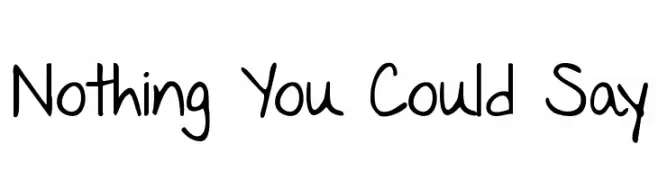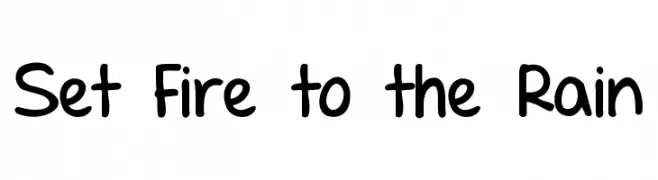
( Fonts by Kimberly Geswein - kimberlygeswein.com )
A playful, rounded font with smooth strokes and a friendly, approachable style.
( Fonts by www.kimberlygeswein.com - Kimberly Geswein )
A bold, playful handwritten font with rounded strokes and a modern touch.
( Fonts by Kimberly Geswein - kimberlygeswein.com )
A bold, playful handwritten font with rounded strokes and a lively, informal style.
( Fonts by www.kimberlygeswein.com - Kimberly Geswein )
A playful, heart-accented font with a hand-drawn, whimsical style.
( Fonts by www.kimberlygeswein.com - Kimberly Geswein )
A bold, handwritten font with a casual and playful style.
( Fonts by www.kimberlygeswein.com - Kimberly Geswein )
A playful, casual handwritten font with dynamic strokes.